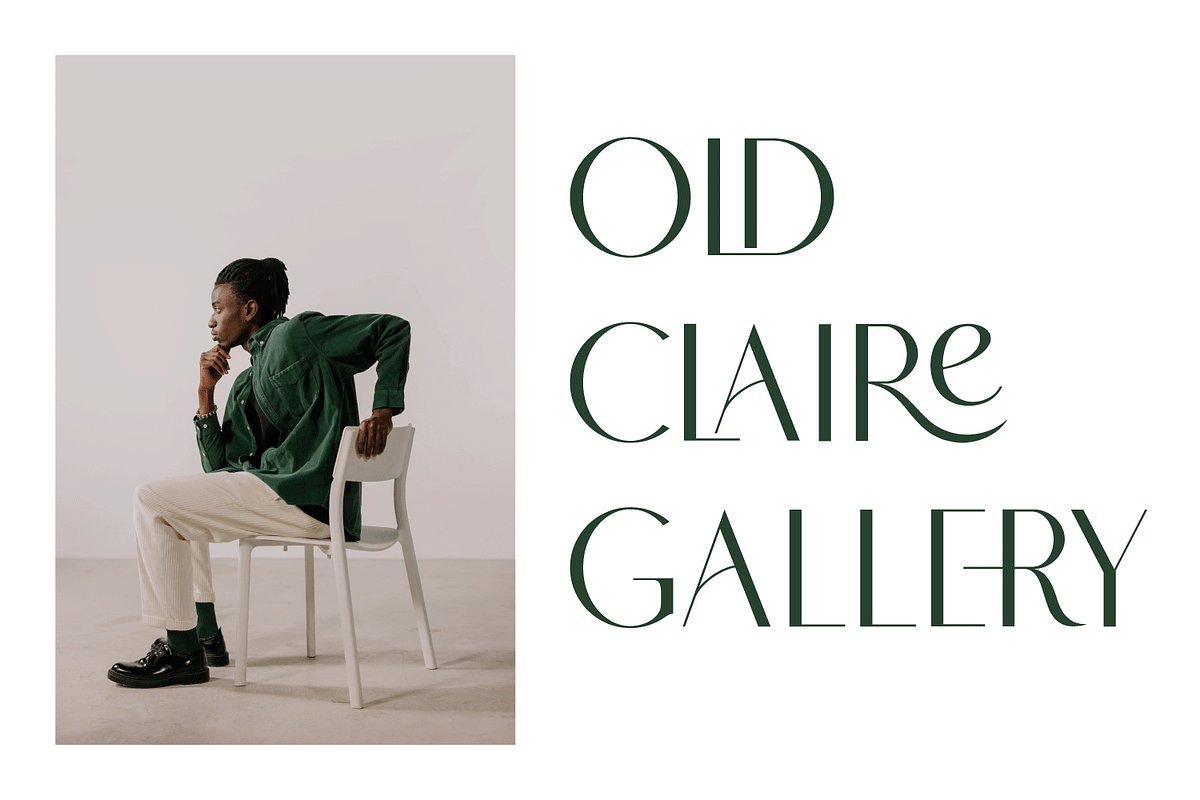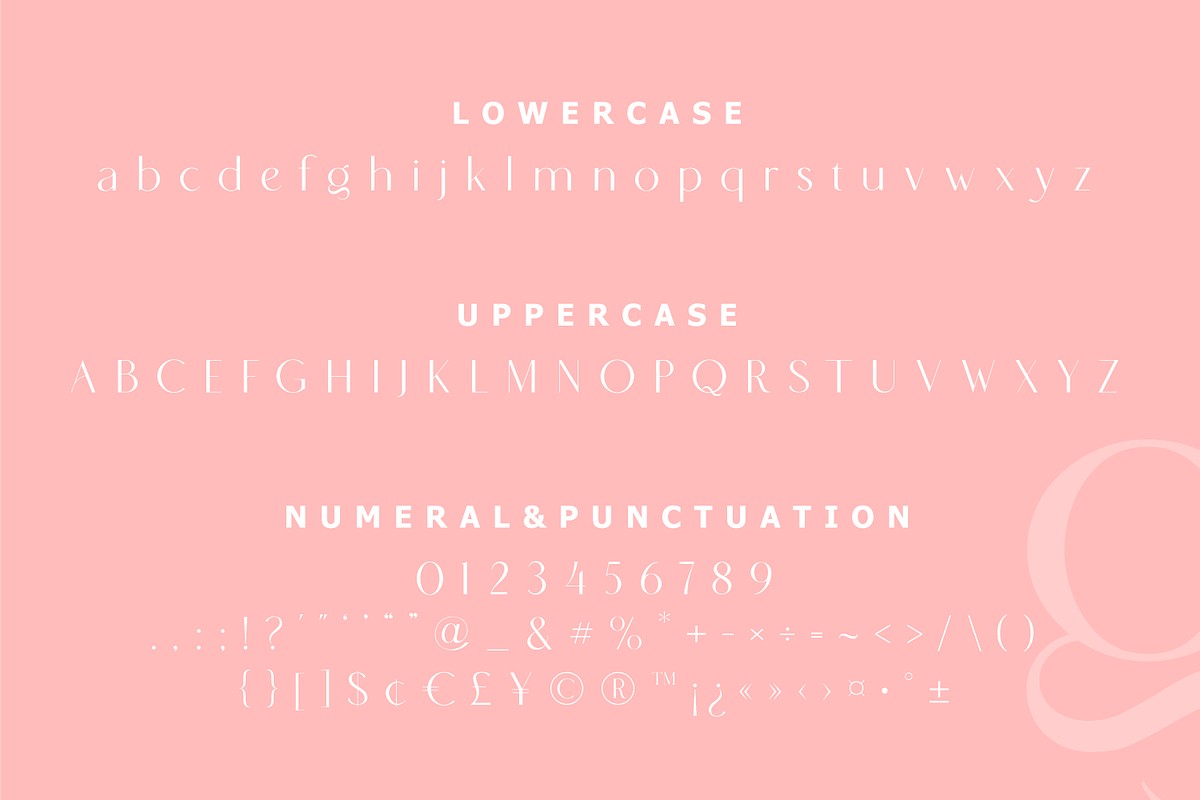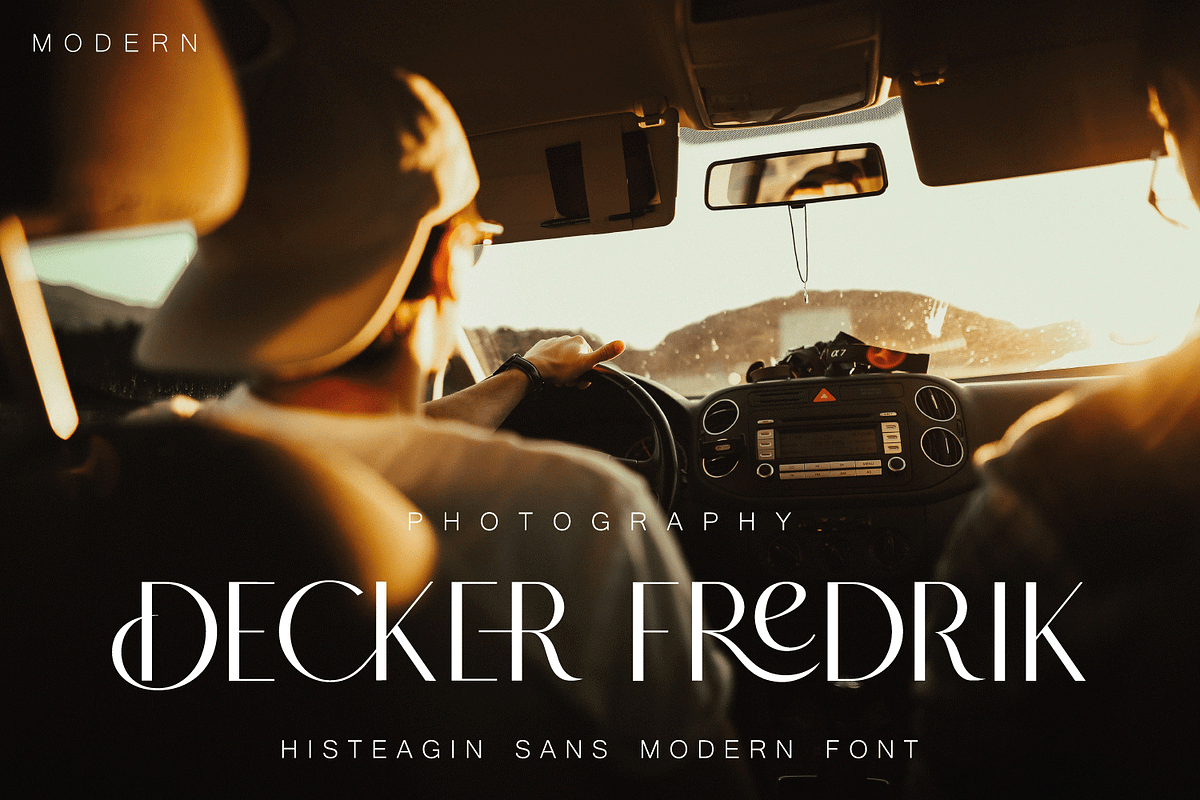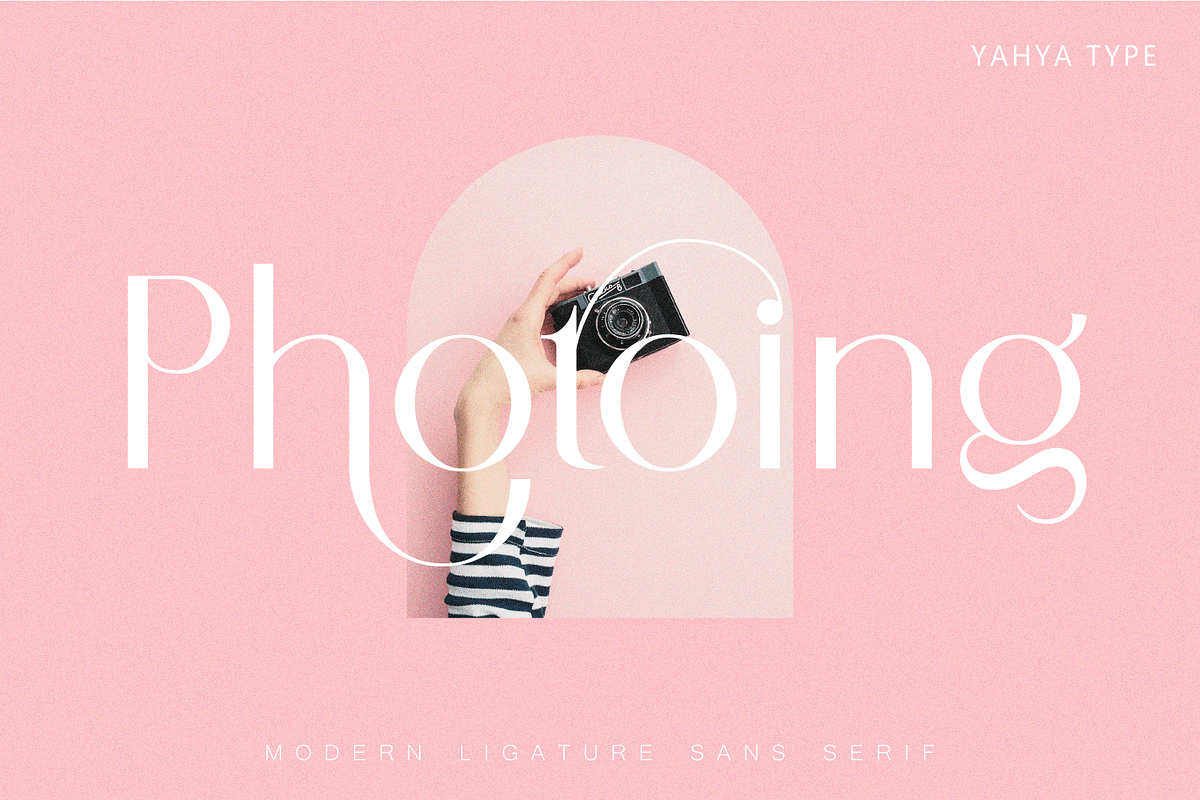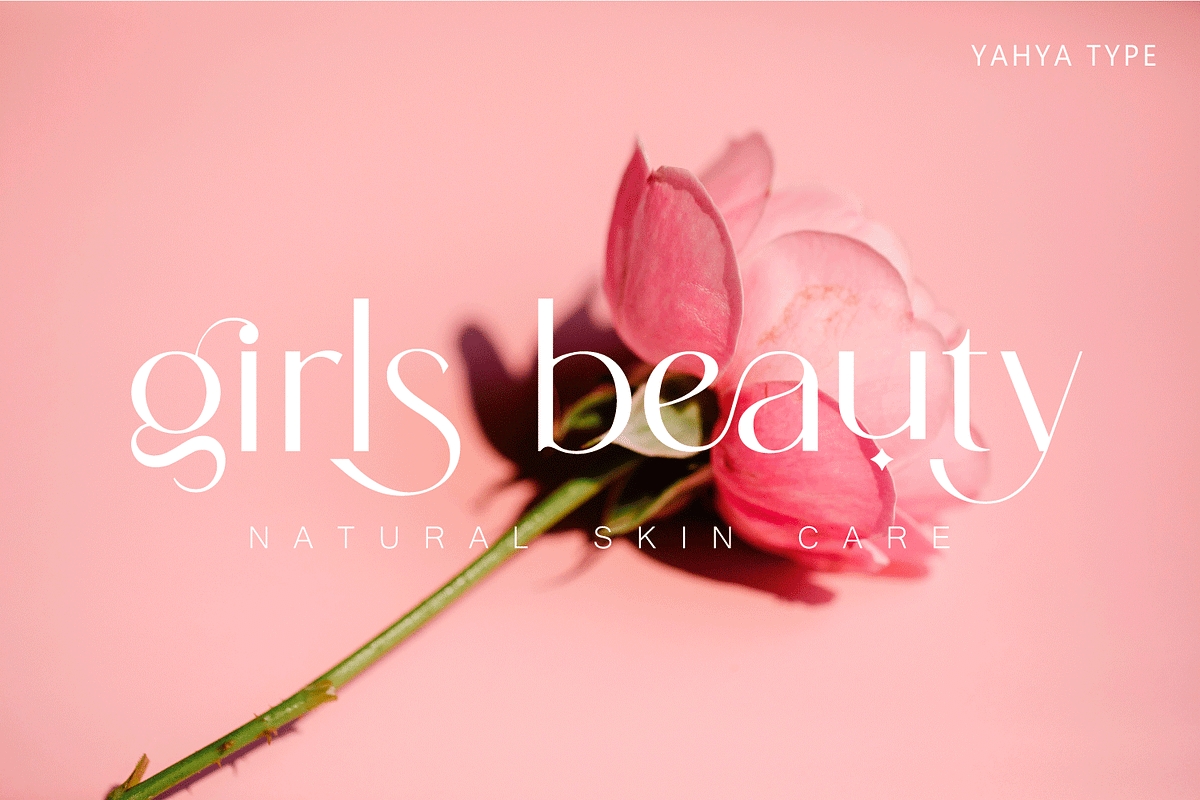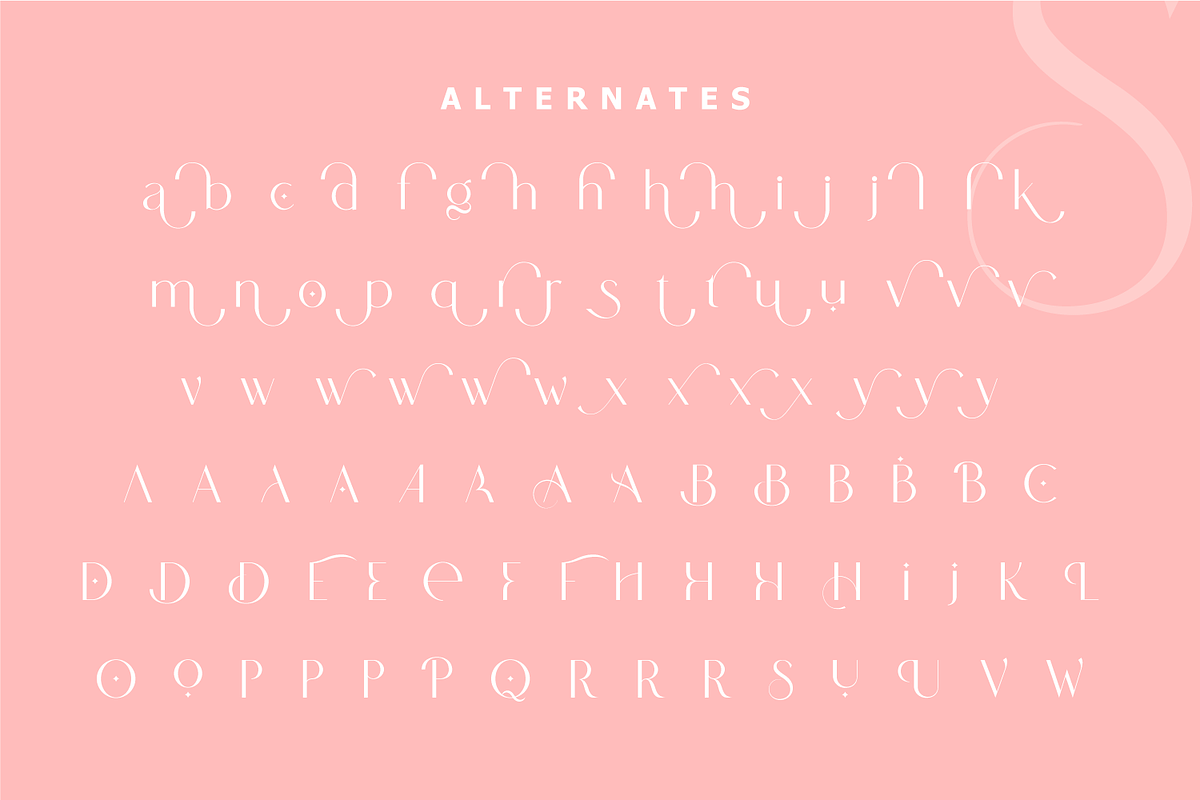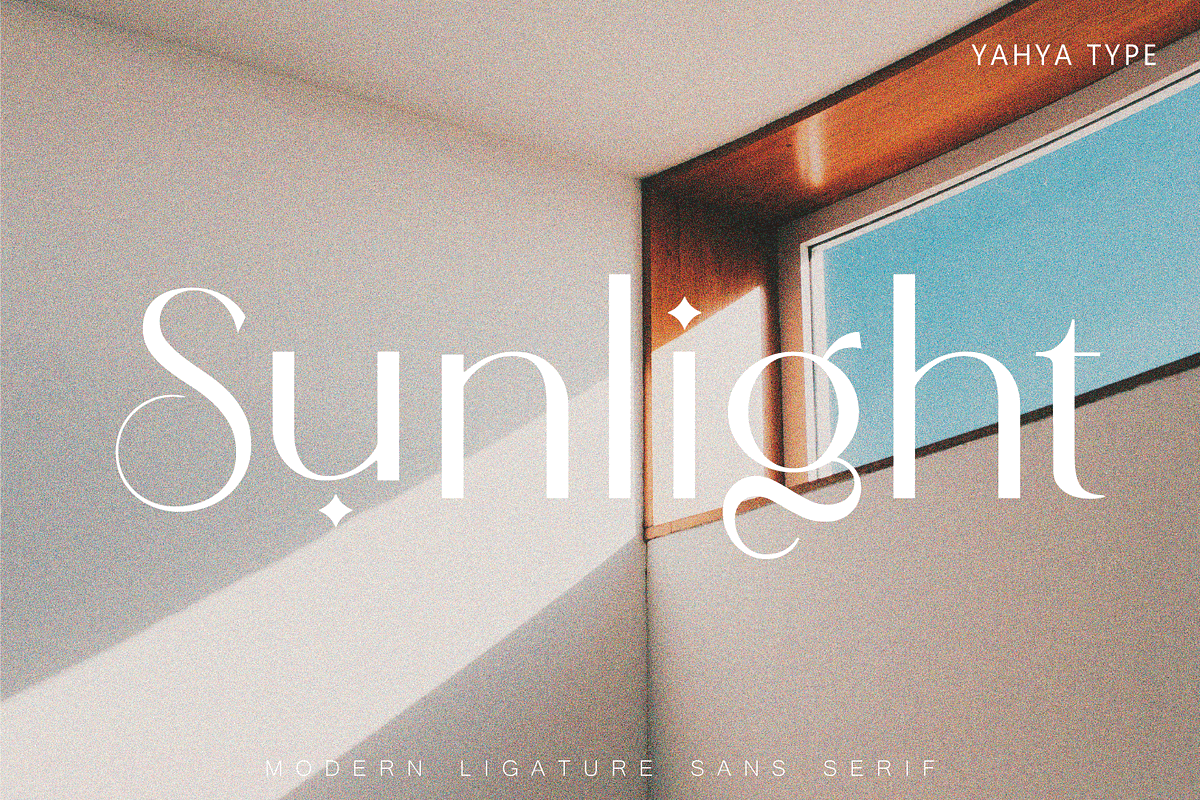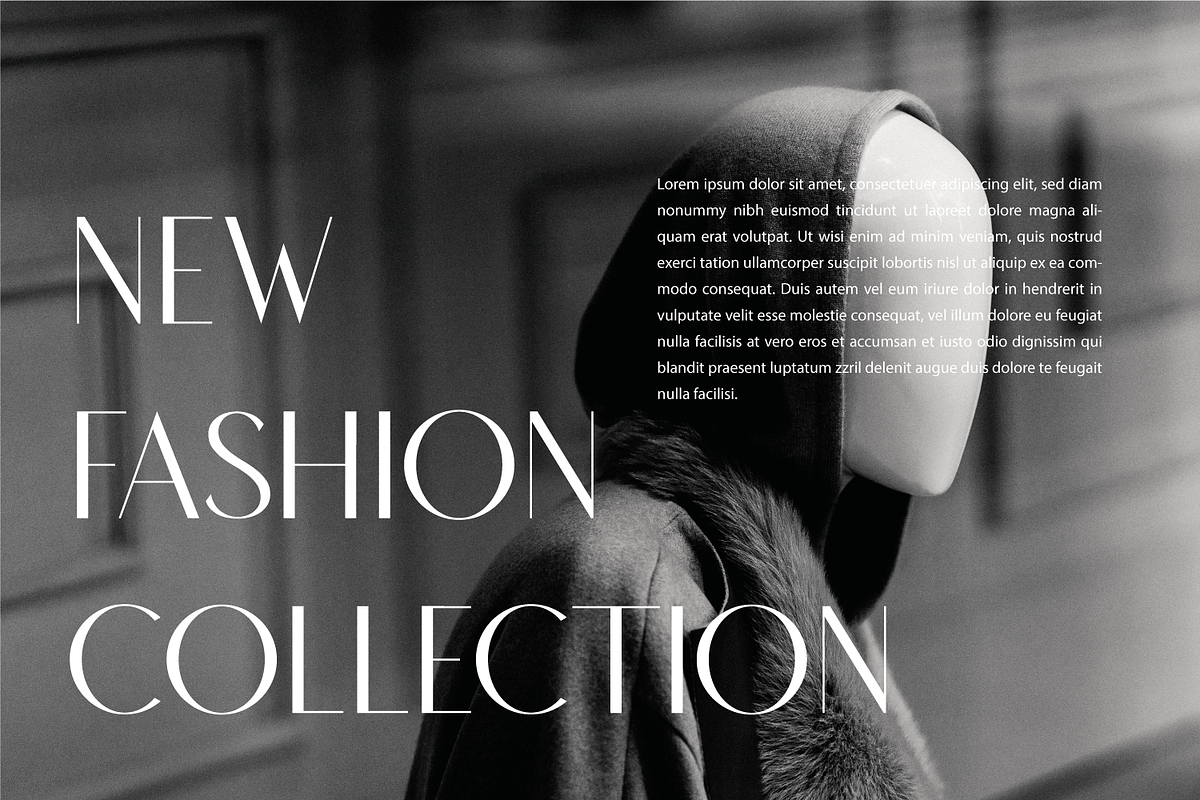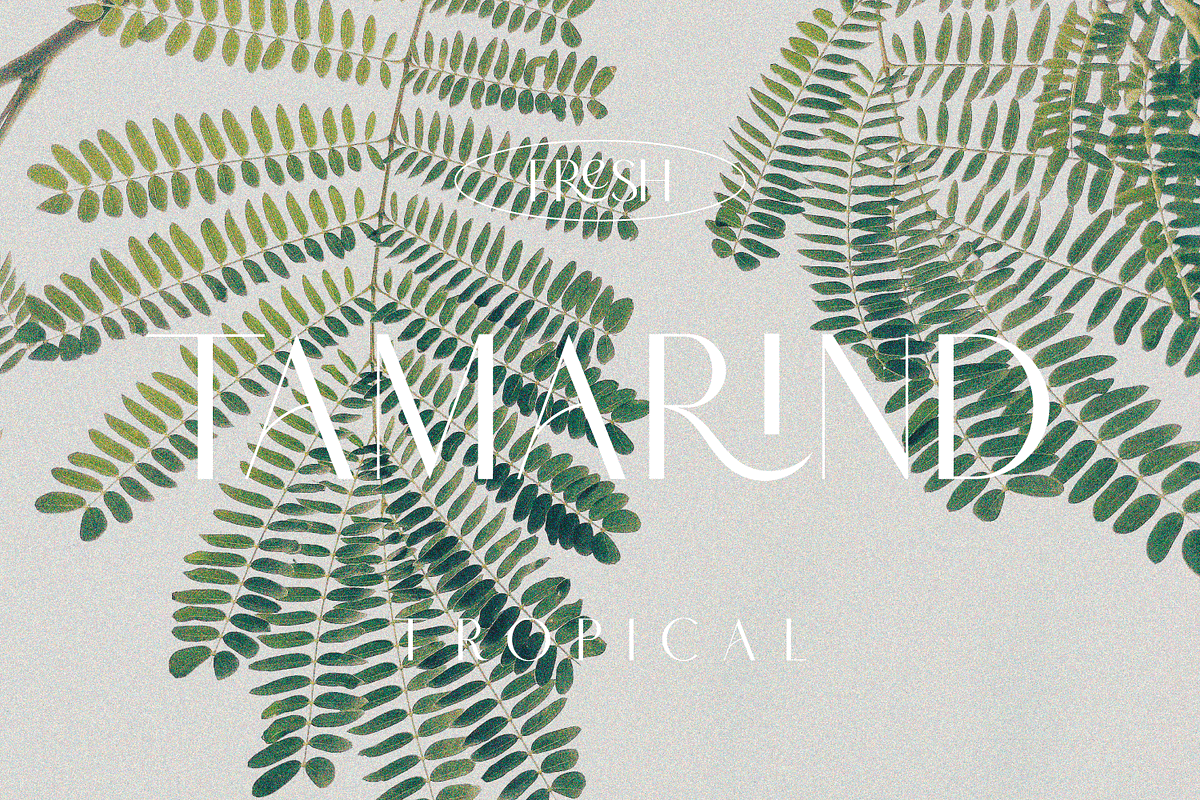
Histeagin Sans
Histeagin sans – A New Sans Serif Font with Fancy Curves, More Alternative Characters, and Multilingual Support.
Histeagin sans – this style works well for branding projects, logos, wedding designs, social media posts, advertisements, product packaging, product designs, label, photography, watermark, invitation, or whatever project you’re working on.
- Numbers, punctuation
- Ligature & Huge Stylistic alternate
- Multilingual support.